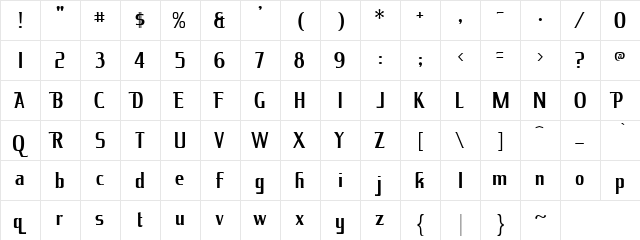
Zalista Vertical Regular
Design Context for Zalista Vertical Typeface
Zalista Vertical offers clean, dependable letterforms without strong stylistic allegiance, making it a practical choice for designers who need flexibility.